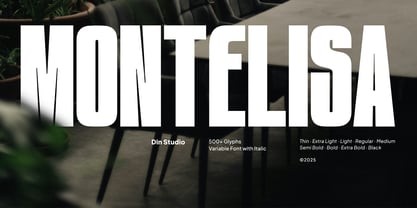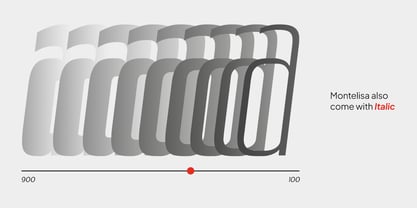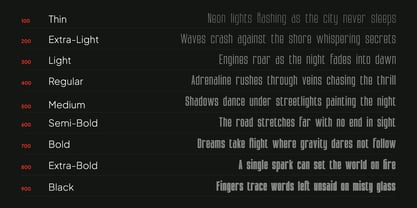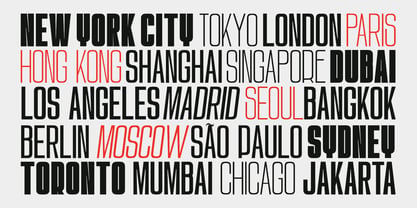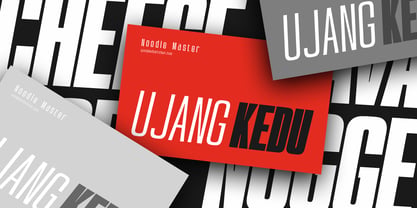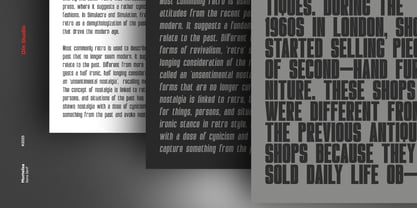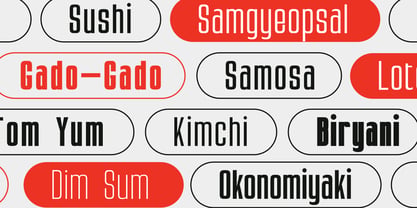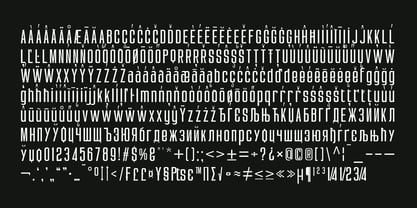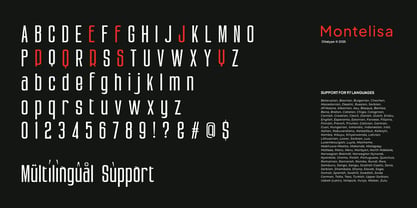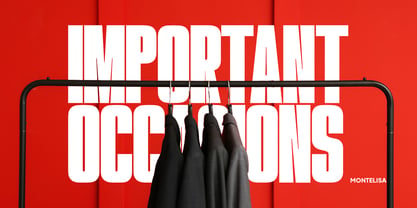
Montelisa
Montelisa is a bold and refined display sans serif font family with tall, clean letterforms and seamless transitions from thin to thick. With 9 powerful weights, italic styles, and full variable font control over weight and slant, Montelisa is built to command attention in the modern graphic design era. In addition, enjoy the features here.
Montelisa fits in bold branding, packaging, posters, billboards, headlines, and many more designs. Find out more ways to use this font by taking a look at the font preview.